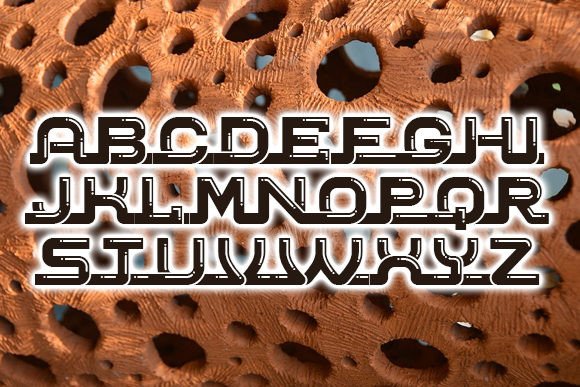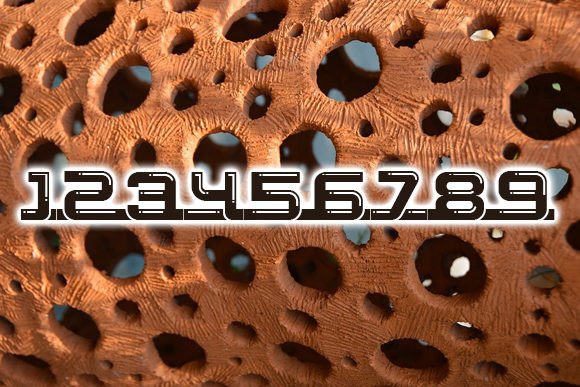
Introducing Connected Font: The Modern Display Font for Bold Statements
Are you tired of using the same old fonts for your designs? Look no further than Connected Font, a modern display font that’s perfect for making a statement. With its unique, eye-catching curves and sharp edges, Connected Font is sure to grab attention and set your designs apart from the rest.
What Makes Connected Font Stand Out?
Connected Font is a sans-serif font that’s designed to be bold and eye-catching. Its distinctive look is characterized by smooth, flowing curves and sharp, angular edges. This combination of curves and edges gives Connected Font a unique personality that’s both modern and edgy.
One of the key features that sets Connected Font apart is its connected letters. Unlike traditional fonts, where each letter is separate, Connected Font features letters that are connected by flowing lines. This creates a sense of continuity and flow, making it perfect for headlines, titles, and other applications where you want to make a bold statement.
Connected Font is a versatile font that’s perfect for a wide range of design applications. Whether you’re a graphic designer, a crafty DIY enthusiast, or a digital artist, Connected Font is a great choice for any project that requires a bold, eye-catching font.
For designers, Connected Font is a great choice for:
- Headlines and titles: Connected Font is perfect for making bold statements and grabbing attention.
- Logos and branding: The unique, connected letters of Connected Font make it a great choice for logos and branding.
- Posters and flyers: Connected Font is a great choice for posters and flyers, where you want to make a bold statement and grab attention.
For crafters, Connected Font is a great choice for:
- Hand lettering: Connected Font is a great choice for hand lettering, where you want to create beautiful, flowing letters.
- Journaling: Connected Font is a great choice for journaling, where you want to add a personal touch to your journal entries.
- DIY projects: Connected Font is a great choice for DIY projects, such as making signs, banners, and other decorative items.
Why Choose Connected Font?
There are many reasons why you should choose Connected Font for your next design project. Here are just a few:
- Unique and eye-catching: Connected Font is a truly unique font that’s sure to grab attention.
- Versatile: Connected Font is a versatile font that can be used for a wide range of design applications.
- Easy to read: Despite its bold, connected letters, Connected Font is easy to read, even at small sizes.
- Modern and edgy: Connected Font has a modern, edgy look that’s perfect for designers and crafters who want to create bold, eye-catching designs.
How to Use Connected Font
Using Connected Font is easy. Here are a few tips to get you started:
- Use it for headlines and titles: Connected Font is perfect for making bold statements and grabbing attention.
- Experiment with different sizes: Connected Font looks great at large sizes, but it’s also easy to read at smaller sizes.
- Pair it with other fonts: Connected Font pairs well with a wide range of other fonts, so don’t be afraid to experiment.
Connected Font is a modern display font that’s perfect for making bold statements. With its unique, eye-catching curves and sharp edges, Connected Font is sure to grab attention and set your designs apart from the rest. Whether you’re a designer or a crafter, Connected Font is a great choice for any project that requires a bold, eye-catching font.